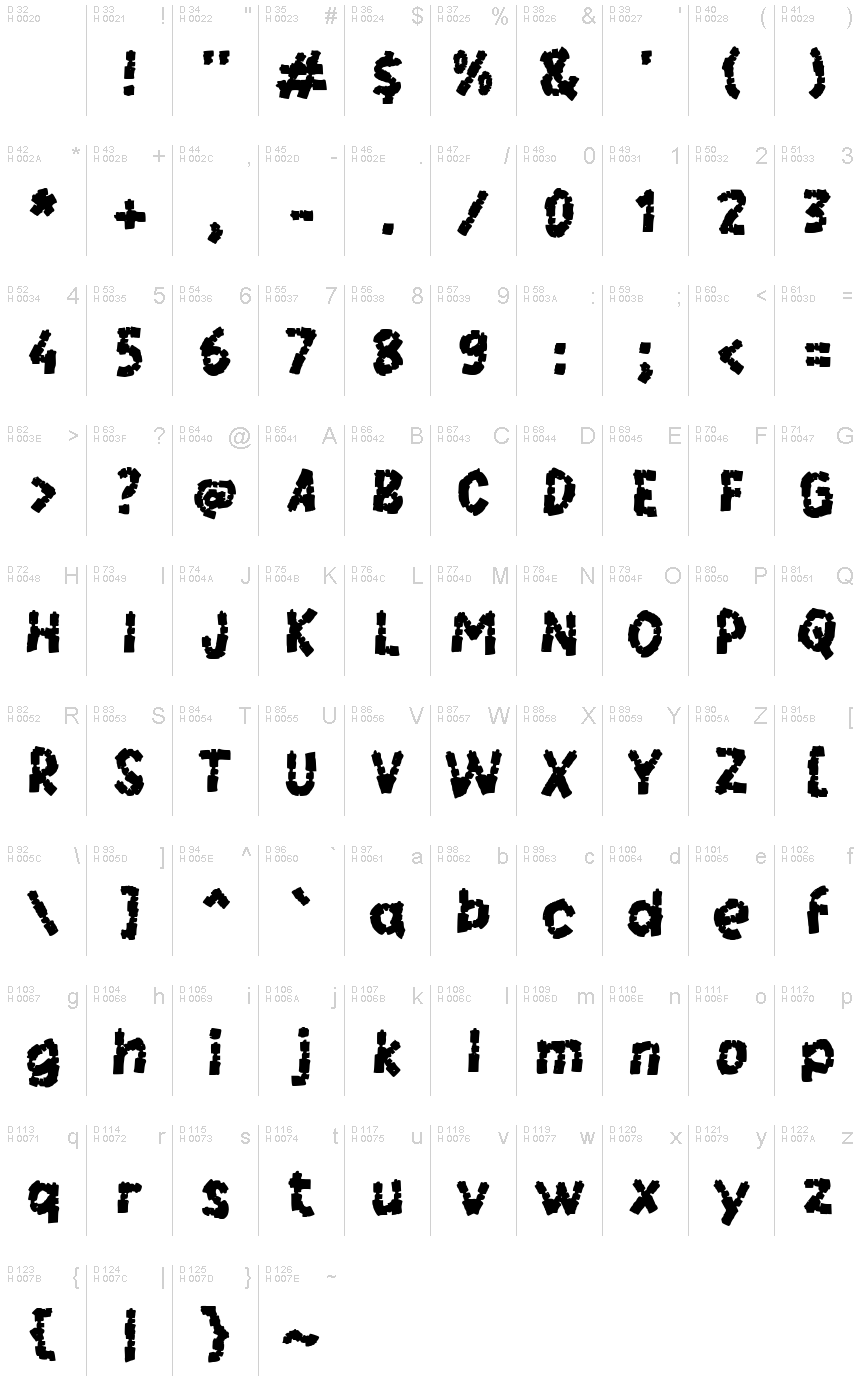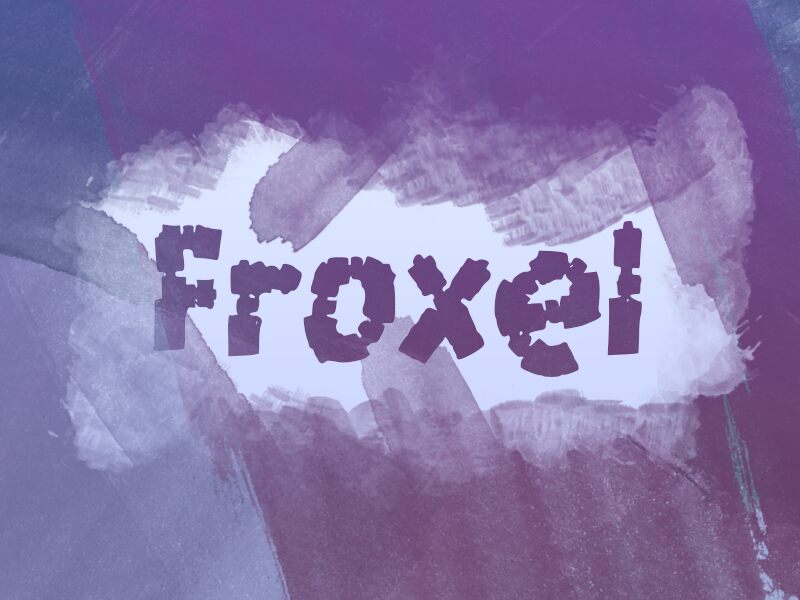
Froxel
Froxel font by wep is an informal typeface that’s full of character and gives your projects a playful feel and energetic vibe. The display font comes with a bold weight and irregular, whimsical, organic letter shapes where unexpected becomes the norm.